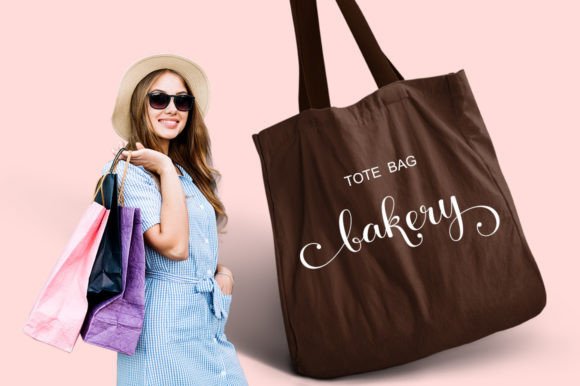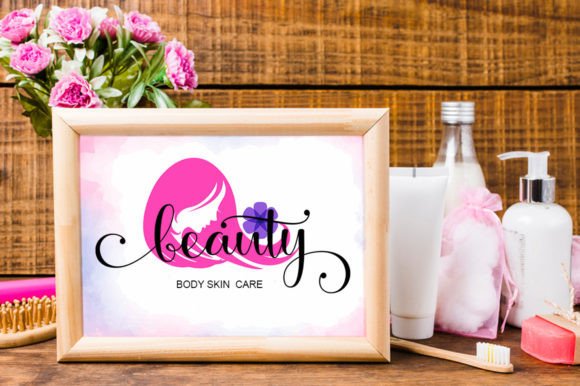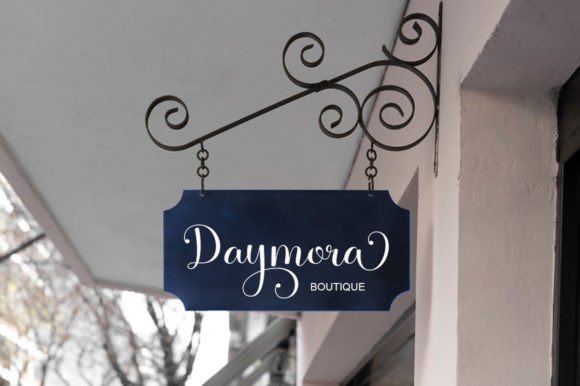
Introduction to Glucola Sakura Font Font
Fonts play a crucial role in design, and the Glucola Sakura Font font is a typeface that brings both character and versatility to any project. Whether you’re working on a branding project, a website, or a print design, the Glucola Sakura Font font offers a unique style that can elevate your work.
Glucola Sakura is a lovely and sweet handwritten font.
This gentle font will look gorgeous on a variety of design ideas It will add a joyful and romantic touch to each of your projects.
Key Features of Glucola Sakura Font Font
Why Choose Glucola Sakura Font Font?
The Glucola Sakura Font font is more than just a typeface – it’s a design tool that helps you communicate your message with style and clarity. Its unique character set and versatile design make it suitable for a wide range of applications, from elegant invitations to bold headlines.
With its carefully crafted letterforms and balanced proportions, the Glucola Sakura Font font ensures readability and visual appeal across all mediums.
What makes Glucola Sakura Font font special?
The Glucola Sakura Font font stands out with its unique design, exceptional readability, and versatility across various design applications.